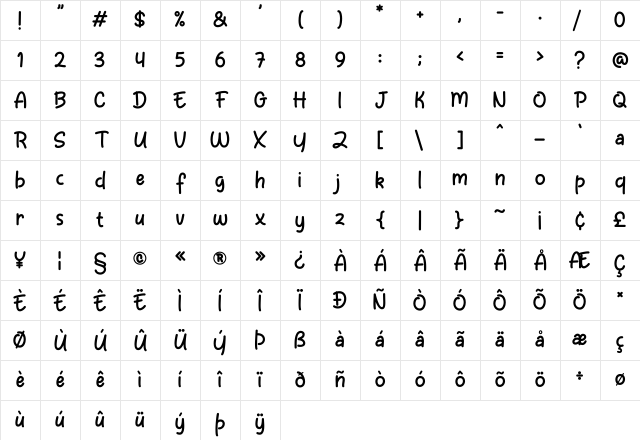
Ordinary Notes Regular Free Font
Ordinary Notes Regular
Ordinary Notes Family
Design Context for Ordinary Notes
Ordinary Notes is a composed and adaptable typeface that performs quietly and consistently across a wide range of design contexts.